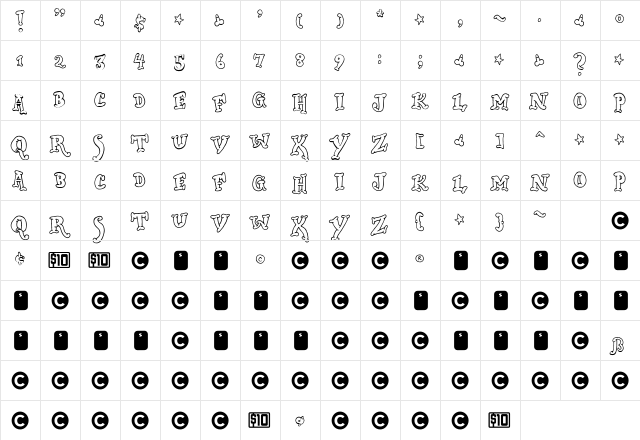
Dickwhipped Lincoln
Design Context for Dickwhipped Typeface
Dickwhipped is a composed and adaptable typeface that performs quietly and consistently across a wide range of design contexts.